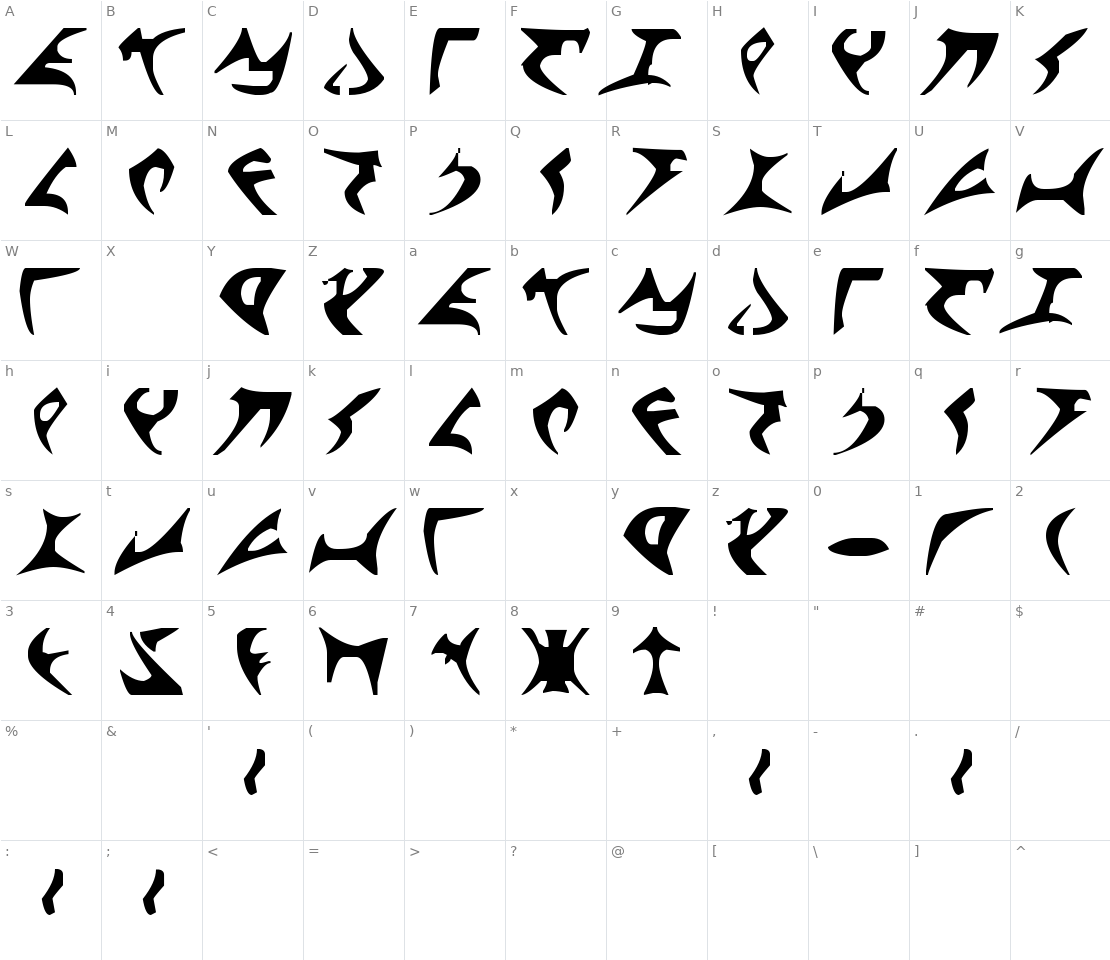
Klingon
by zanatlija
Klingon by zanatlija recreates the sharp, angular script of the fictional Klingon language from Star Trek, with jagged strokes and alien geometry that make it immediately recognizable to fans. It's a decorative novelty face through and through, useful for fan art, themed events, cosplay props, and sci-fi projects where authenticity to the franchise matters more than conventional legibility.